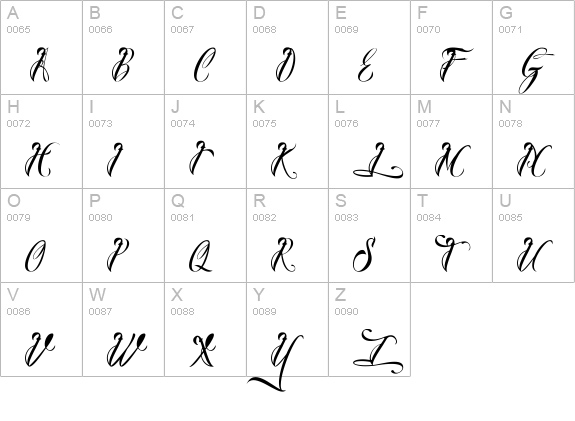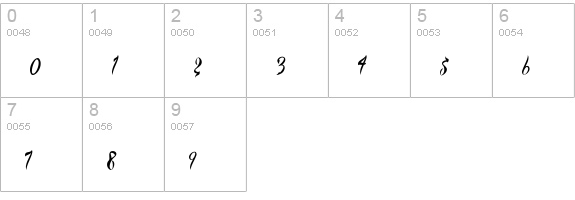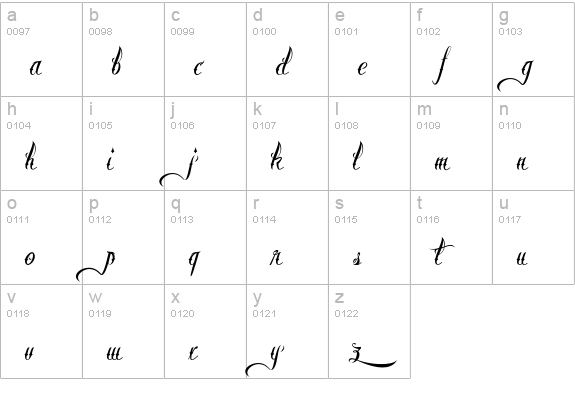
Brother Tattoo Font Details
Brother Tattoo font is a stunning display font that perfectly captures the essence of traditional tattoo art. With its bold and intricate letterforms, this font is sure to make a powerful statement in any design project. Each character is meticulously crafted to mimic the hand-drawn strokes of a skilled tattoo artist, giving it an authentic and edgy feel. This font is not only visually striking, but it also has a wide range of versatility. Whether you're looking to create bold and eye-catching headlines, or add a touch of artistic flair to your designs, Brother Tattoo font will not disappoint. Its unique style and attention to detail make it a standout choice for any project that requires a strong and impactful aesthetic. The best part? Brother Tattoo font is available for free! That's right, you can download this incredible font without having to spend a dime. Simply head over to FontsMarket.com, and you'll have access to this impressive typeface, ready to elevate your designs to the next level. So why wait? Don't miss out on the opportunity to add Brother Tattoo font to your font library. Whether you're a professional graphic designer, a tattoo enthusiast, or simply someone who appreciates the beauty of typography, this font is a must-have. Download it for free today and unleash your creativity with Brother Tattoo font.